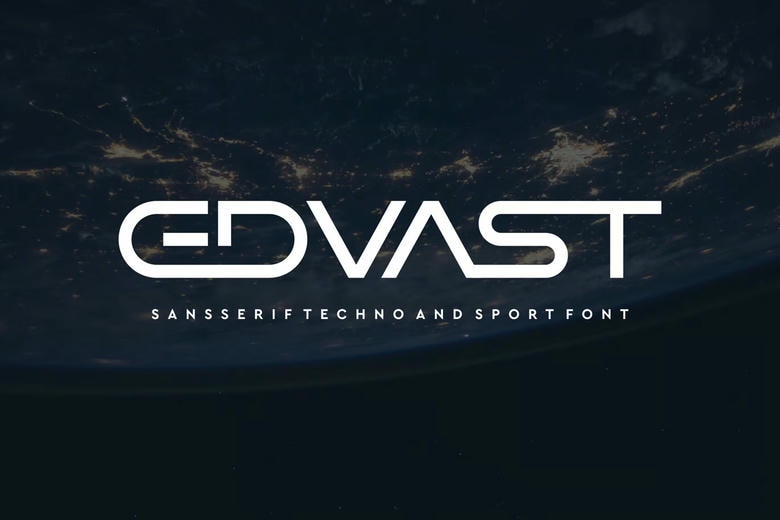
Edvast Font
Edvast is a bold and authentic display font. The font is suitable for any branding project like logo, t-shirt printing, esport, and many more. outstanding in a wide range of contexts.
Edvast Display Font